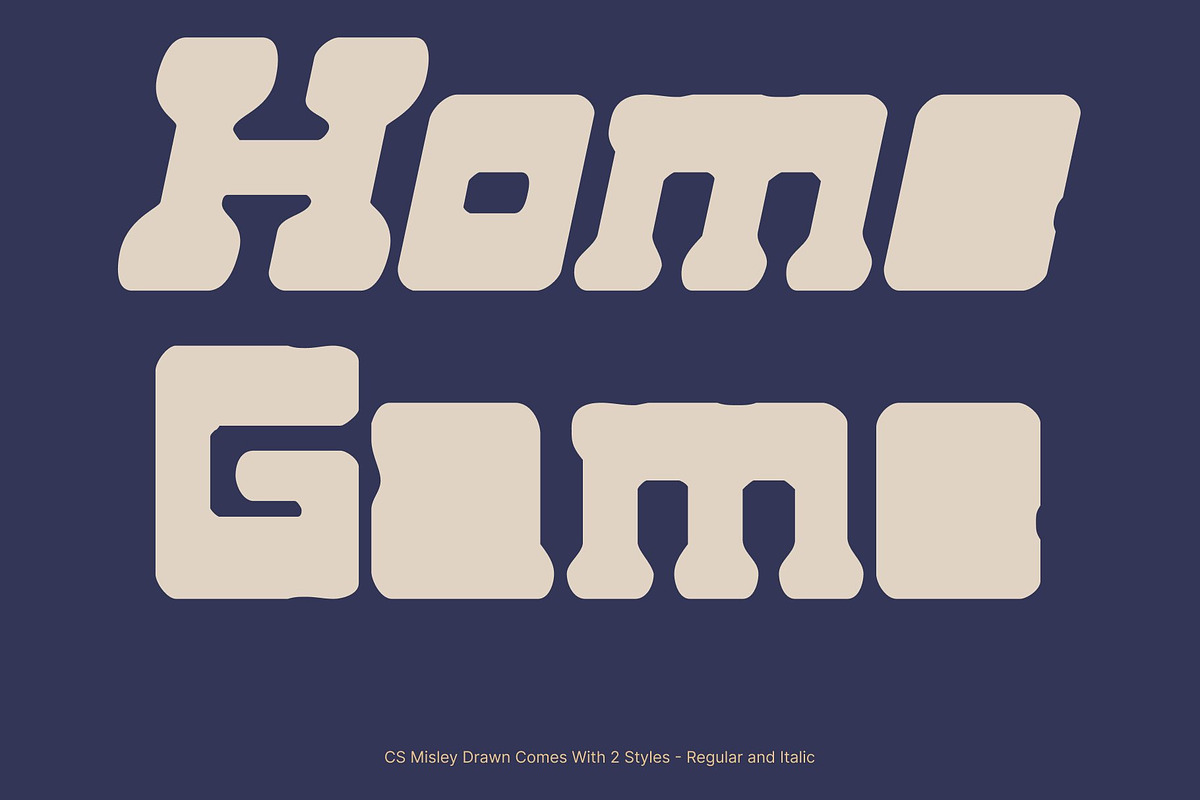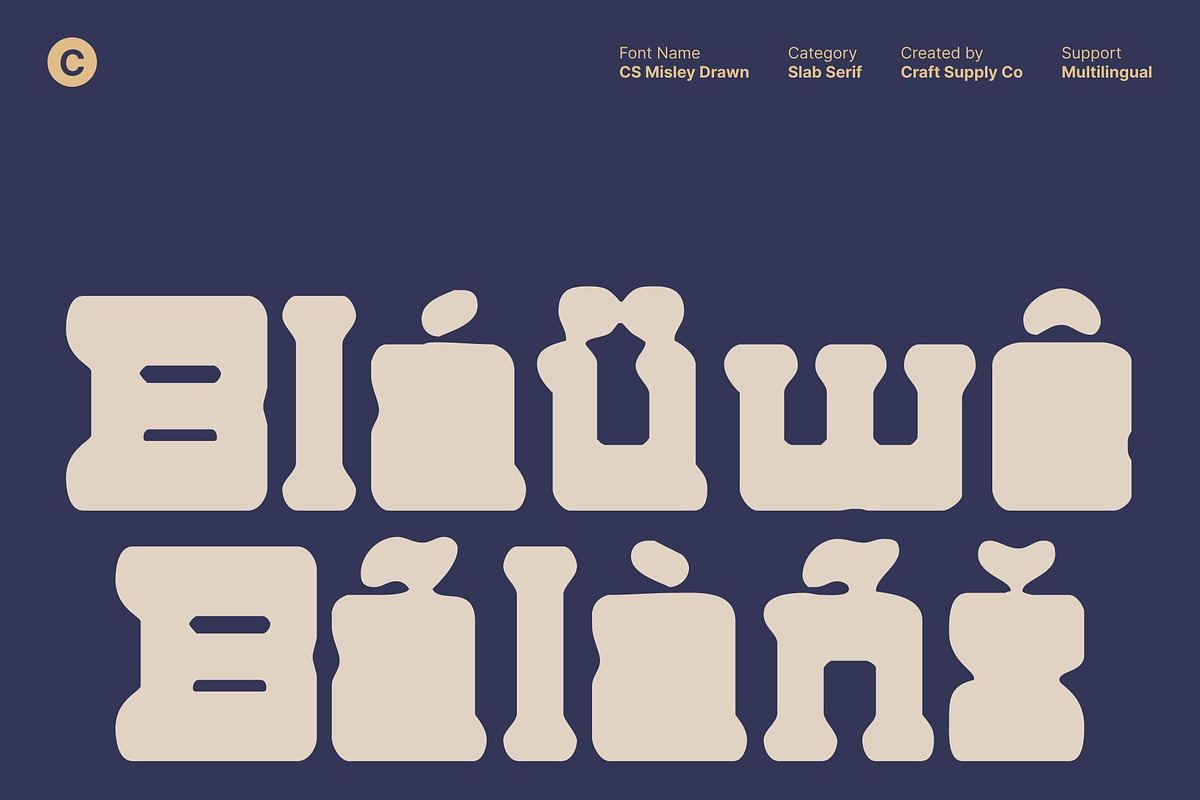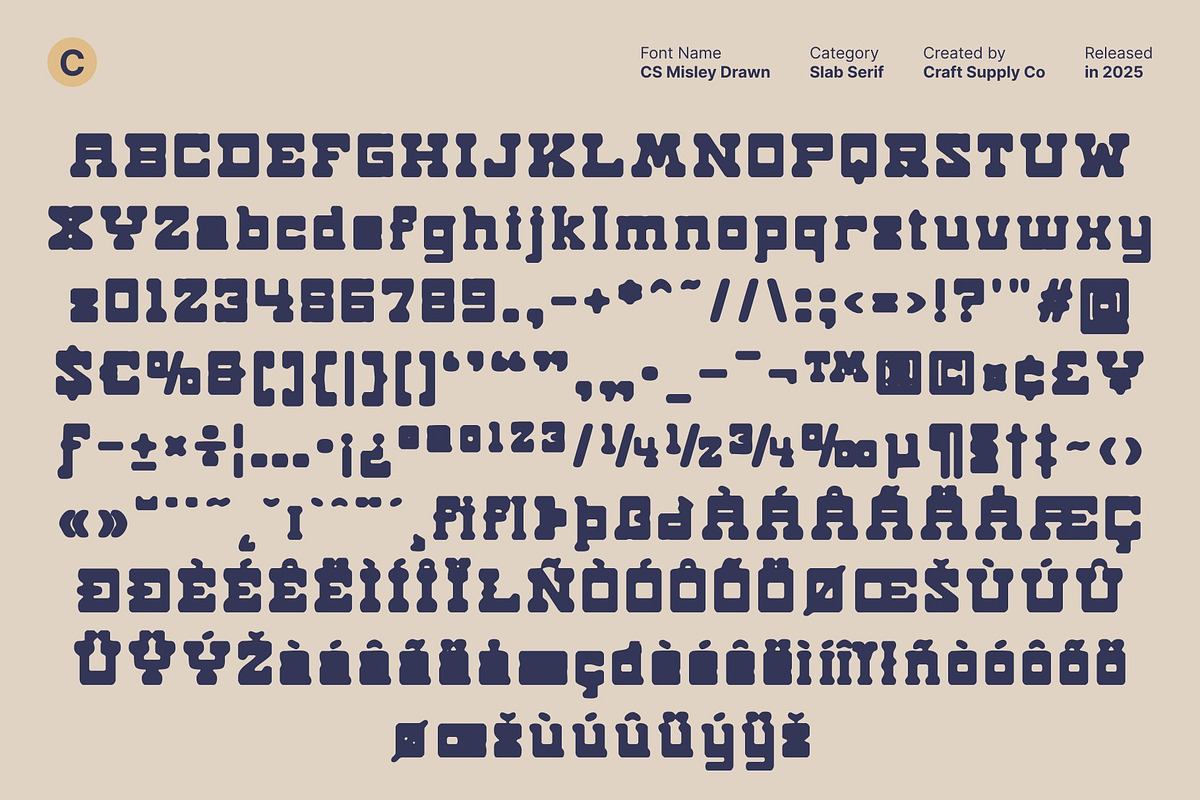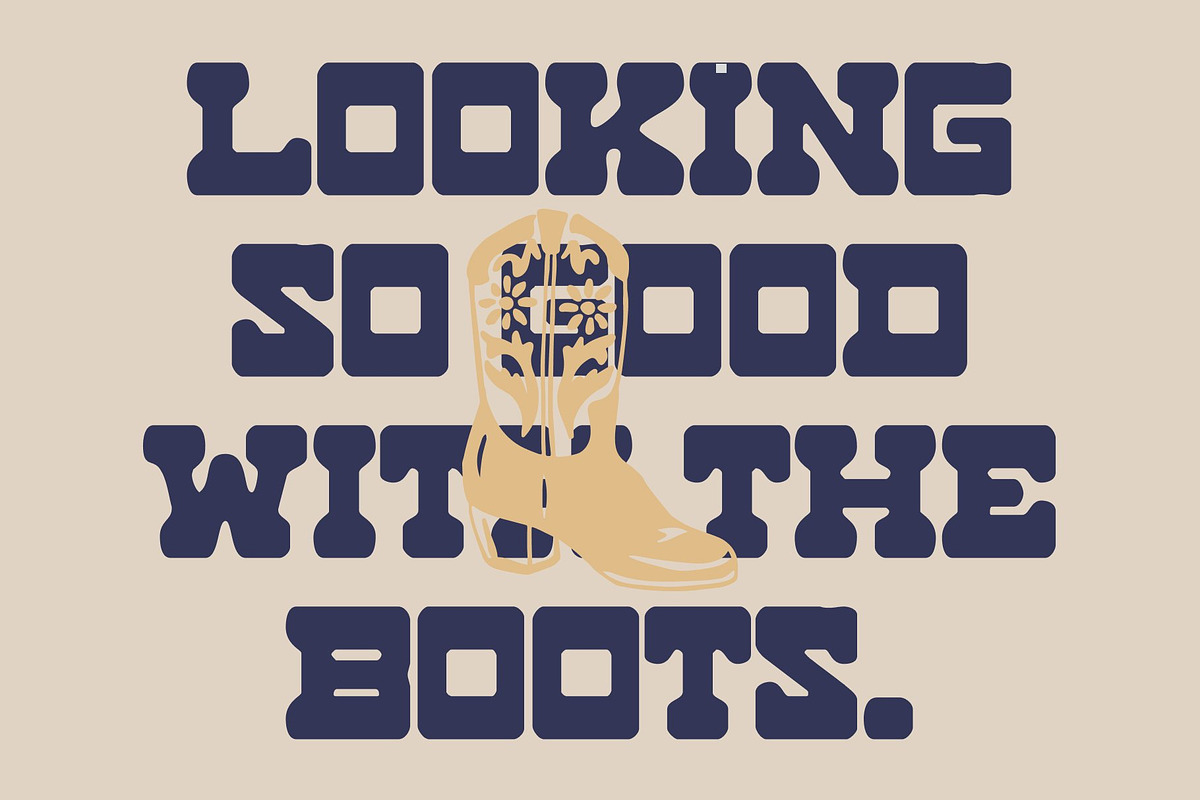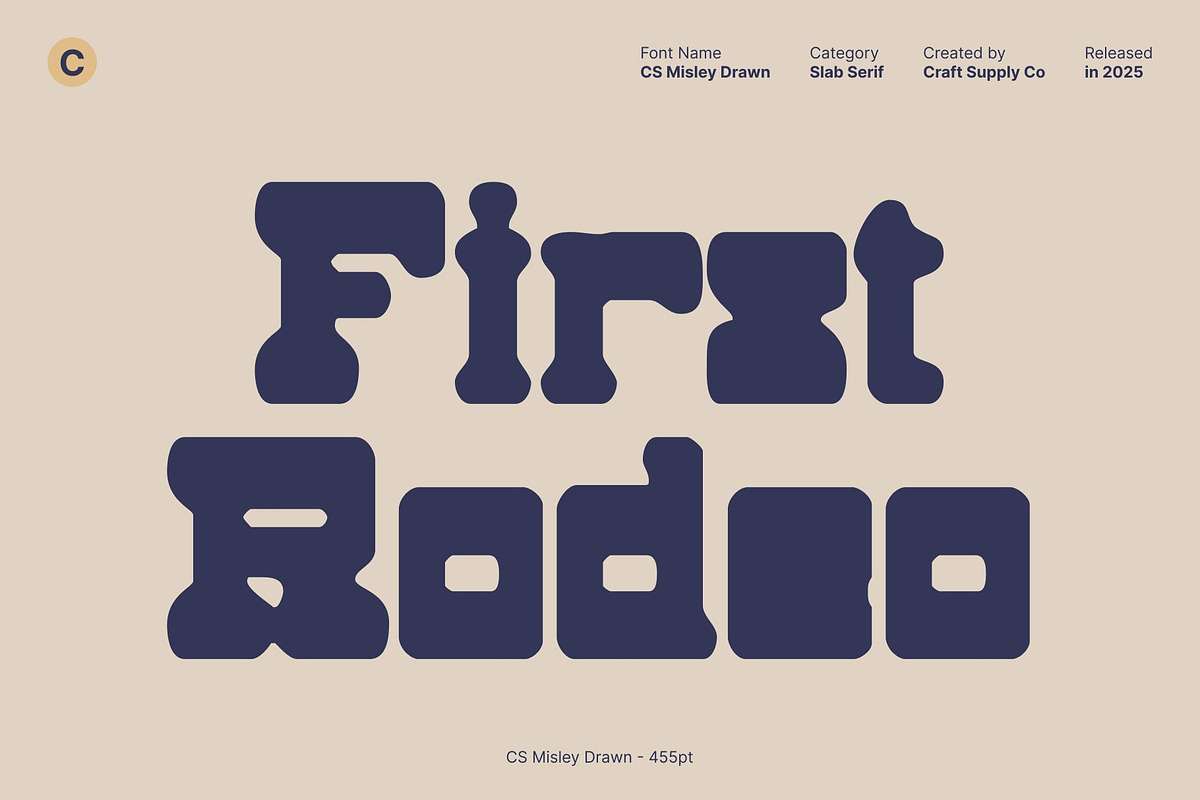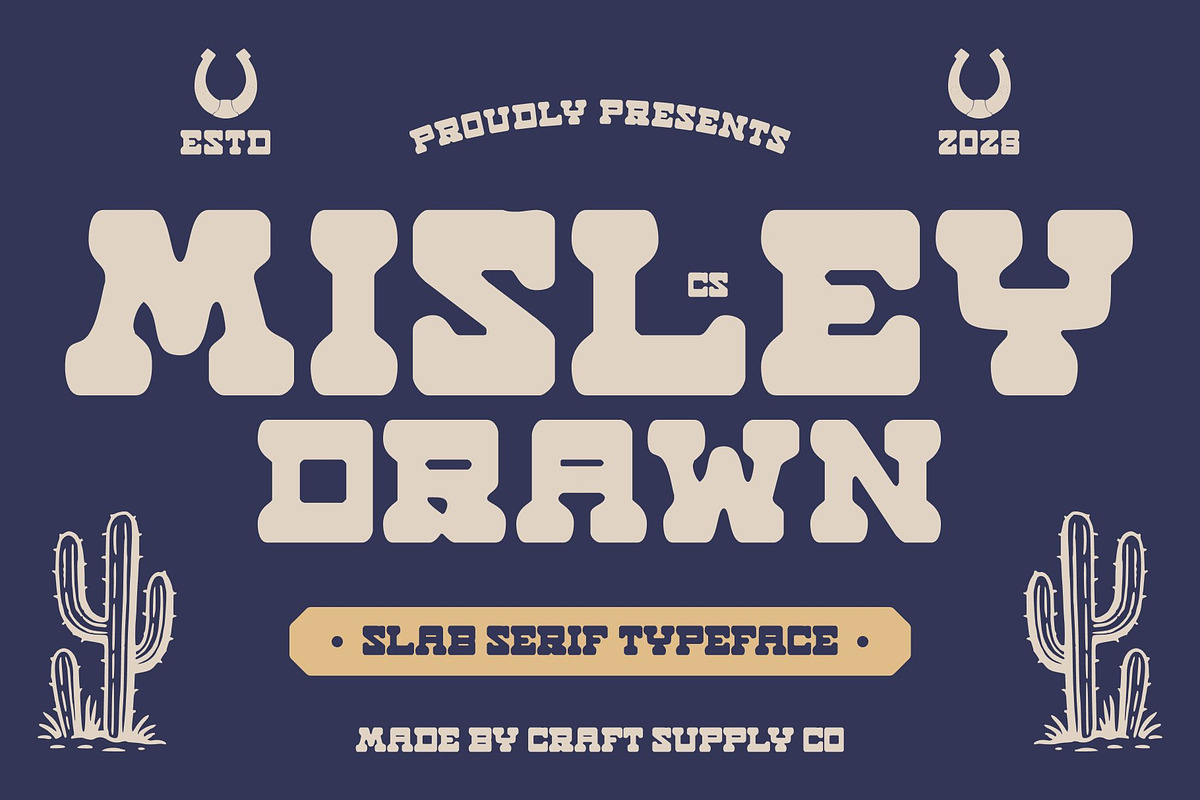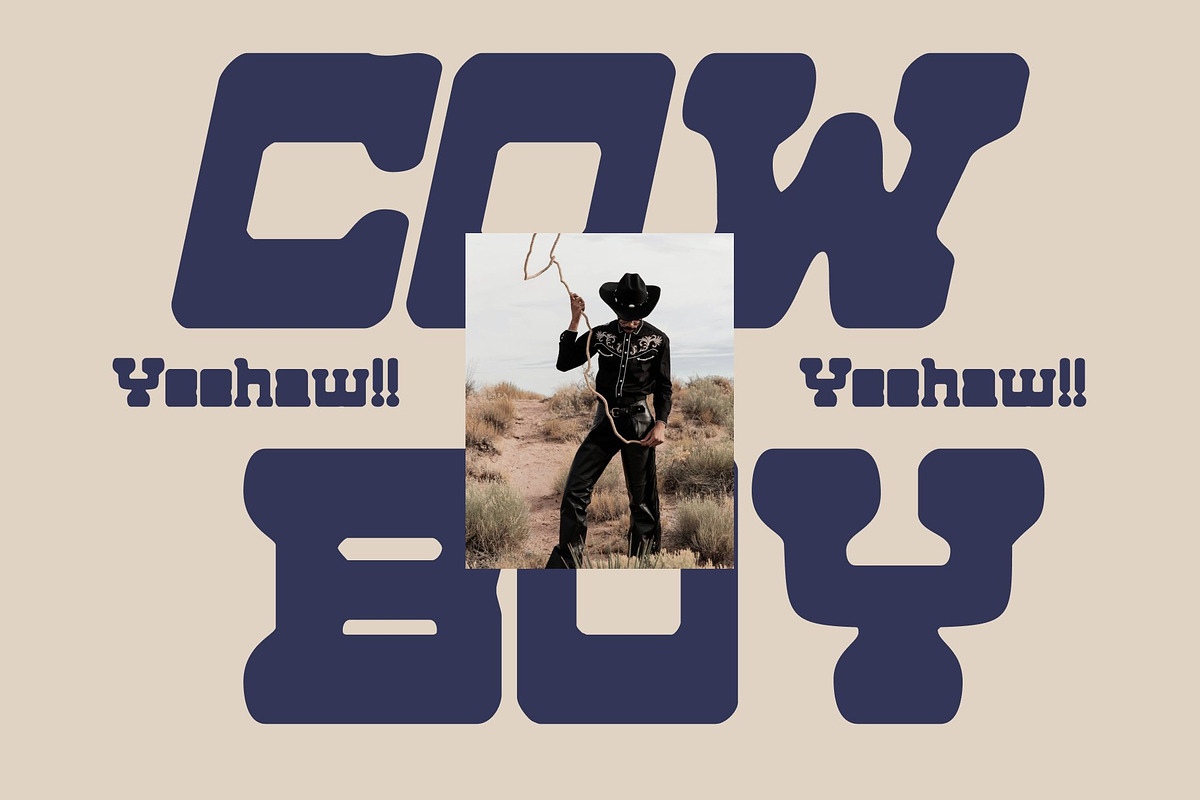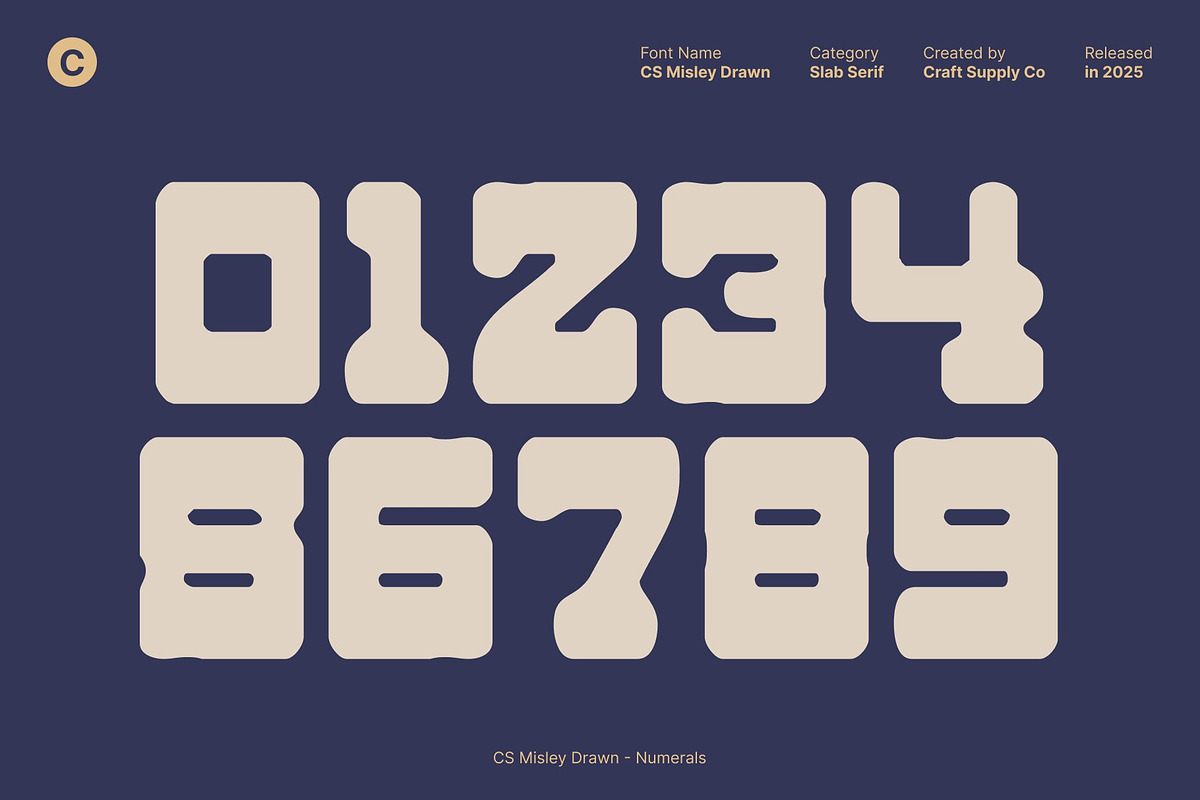
CS Misley Drawn
CS Misley Drawn – Western Display Font with Rugged Frontier Character
Classic Western Influence with Hand-Drawn Texture This is a bold western display font inspired by the raw spirit of the Wild West. Drawing from classic frontier signage, it features slab-like serifs and wide letterforms that evoke cowboy towns, dusty saloons, and hand-painted wooden signs. The hand-drawn texture adds an authentic, handcrafted feel, reinforcing its rugged and expressive character.
Wide Letterforms with Strong Slab Construction Its wide proportions create a powerful and grounded appearance. Each character is built with solid strokes and firm slab serifs, delivering excellent readability while enhancing a tough, hard-wearing aesthetic. This strong construction makes highly effective for display use where visibility and impact matter most.
Rugged Style with Vintage Western Flair This font captures the grit and charm of classic western typography. The design reflects adventure, tradition, and resilience, channeling the visual language of frontier-era graphics. Subtle rough details add personality and storytelling depth, making the font ideal for heritage-inspired and nostalgic western themes.
Perfect for Posters, Branding, and Themed Designs Designed to stand out, excels in posters, logos, branding, packaging, and vintage-themed projects. Its bold western identity ensures your message commands attention while setting a strong thematic tone perfect for cowboy-inspired branding, event promotions, retro visuals, and rustic design concepts.